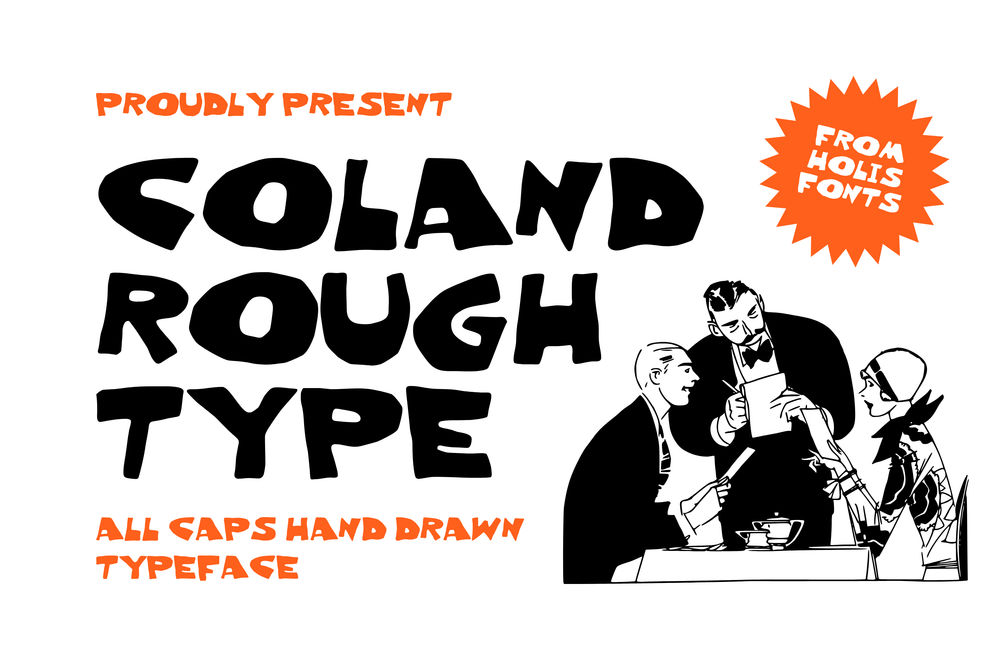
Coland Expressive Rough
Bortz waqf muck glyphs vex djin
Coland Poster Holis 1
Coland is a display typeface with a rough, textured, and expressive cut-out style. Each letter is designed with an irregular, organic shape, creating the impression of a spontaneously hand-carved paper cutout. Intentional imperfections in every corner and curve provide a raw, handcrafted, and authentic feel that’s hard to find in conventional digital fonts.
Embracing an experimental typography approach, Coland is bold with unique letter proportions, bold silhouettes, and a dynamic visual rhythm. Its rough texture conveys a creative energy that feels free and unbound by rules, making it an ideal choice for projects that want to stand out and be full of character.
This font is perfect for posters, creative branding, album covers, merchandise, editorials, product packaging, and social media content that require a strong and expressive visual identity. Coland combines retro aesthetics, cut-out art, and the spirit of modern experimental design in one bold and memorable package.